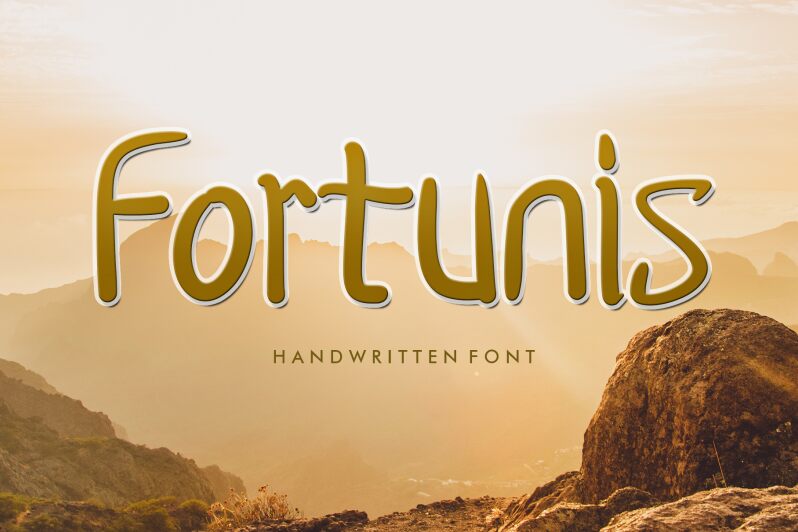
Fortunis font by Annisa Afni is a free handwritten font with an approachable style and organic feel. Its casual hand-drawn characters carry a modern aesthetic that makes them enjoyable to use for both their appearance and simplicity offered in designs.
Fortunis can be used for apparel items, branding designs, invitations, business cards, stationery, packaging boxes or bags, posters and flyers. Decorate book covers with light cursive titles that put readers in the mood for your novels or use Fortunis for logotypes.